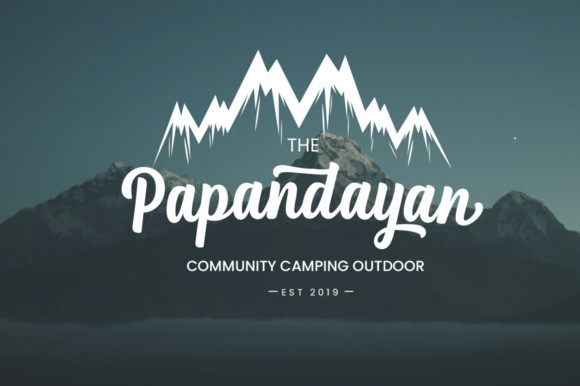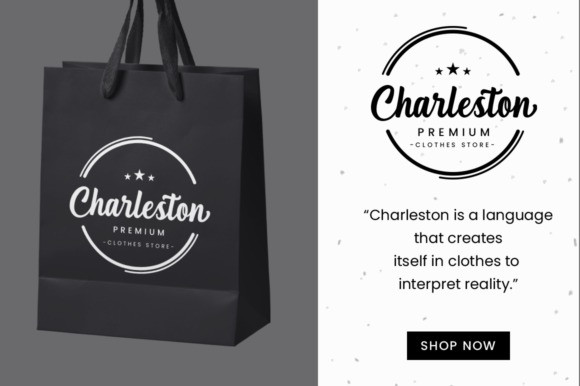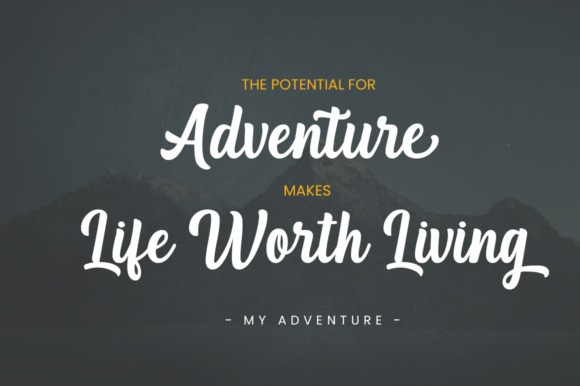
Blackmatte Bold Script Font
A standout bold script font with a touch of nostalgic look and feel. Made from font designer named Manjalistudio. Not too thin and not too thick, balanced and varied, this font was designed to enhance the beauty of your projects. Blackmatte is PUA encoded which means you can access all of the glyphs and swashes with ease!